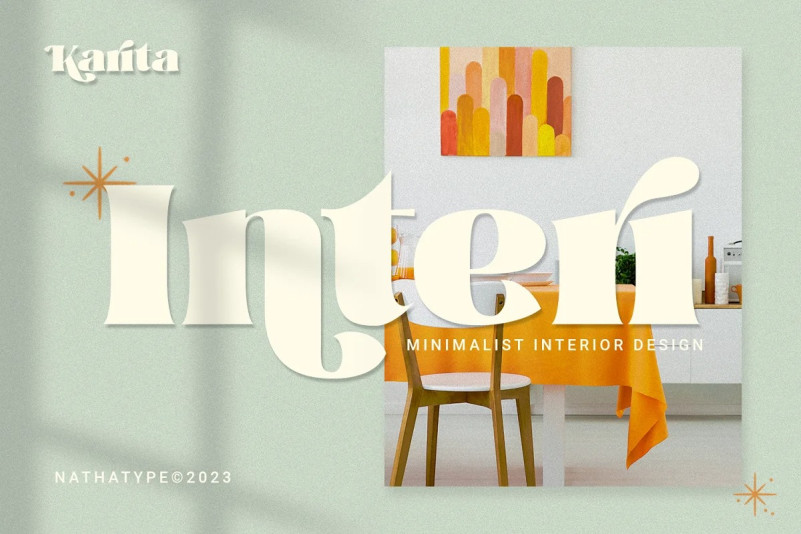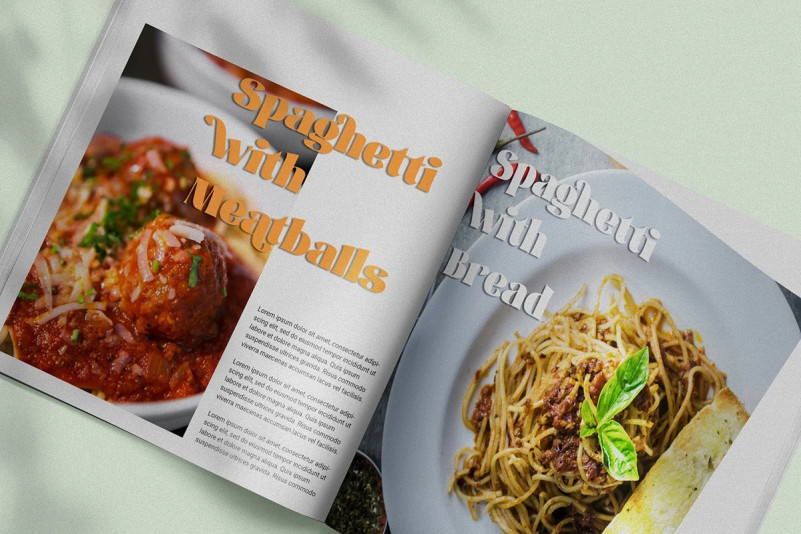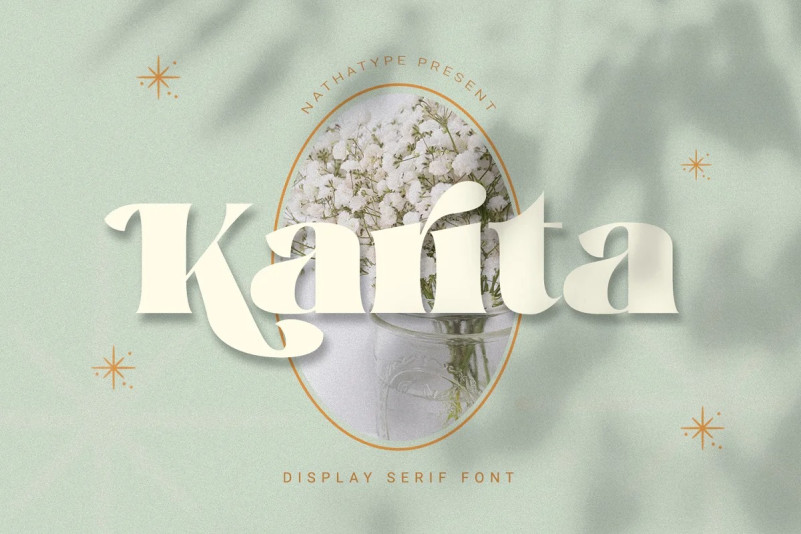
Karita Font
Karita Serif Font is a classic, elegant, professional display serif font to increase the product and brand values promoted. This font looks more prominent than the others and shows strong, yet elegant impressions to attract customers. Continuity elements on every little scratch of the letters’ edges lead your eyes to follow one letter to another in line with serif font characters. Besides, this font type has thick lines and strong contrasts to attract customers and to show firm impressions. For a legibility reason, you can use this font for big text sizes. You can enjoy the available features here as well.